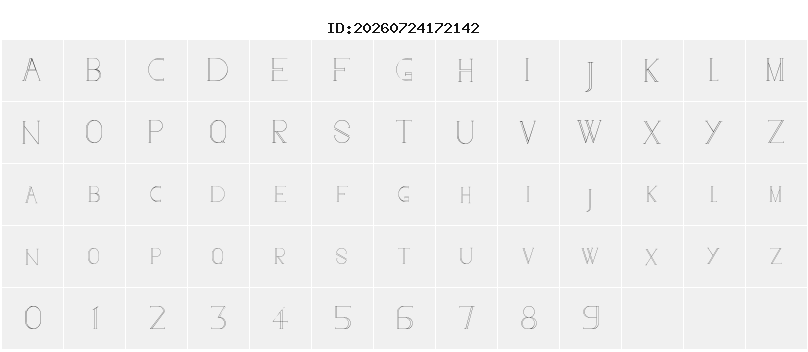
About go to the sky.ttf
go to the sky.ttf is a modern, elegant sans-serif font designed for ultimate readability and visual harmony. Perfect for branding, headlines, web design, and print materials.